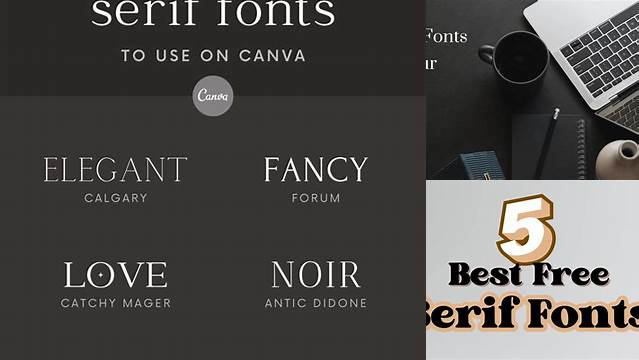
Best Free Serif Display Fonts For Stunning Designs
Are you ready to supercharge your design projects? Let's dive into the world of serif display fonts! They're perfect for making a statement and adding a touch of elegance. Display fonts are designed to grab attention, and when you pair them with the classic charm of serifs, you get a winning combination. Finding the right font can be a game-changer. Imagine the impact of a beautifully crafted headline or a logo that instantly conveys sophistication. With so many options out there, choosing the best free serif display fonts can be a real adventure. We will explore some of the most popular choices, and share tips on how to use them effectively. This is a guide to help you discover the best fonts and enhance your designs. So, let's get started, and get ready to elevate your design game!
Why Choose Serif Display Fonts?
First off, why would you choose a serif display font? Well, it's all about the details. Serif fonts, with their little strokes (serifs) at the ends of letters, have a timeless quality. They bring a sense of tradition, trust, and refinement to your designs. Display fonts, on the other hand, are made to be seen. They're meant for headlines, titles, and anywhere you need to make a big impact. When you combine them, you get something special. Serif display fonts are great for making headlines or titles, or adding a sophisticated touch. You see them everywhere, from website headers to print advertisements, and logos. They're an excellent way to add a touch of sophistication. The fonts have the power to set the tone and help your message stand out. For example, think about how a classic serif font can instantly make a brand look more established and reliable. This is why they are great choices. It's not just about aesthetics. Using the right font can improve readability and make your content more appealing. It's all about creating the right first impression and getting your audience hooked. So, think of your font choice as another tool in your design toolbox. Choosing the right one can make a real difference in the way your work is perceived. Let's go over some great choices. So, as you can see, choosing a serif display font is all about bringing in a bit of elegance and making a bold statement.
Top Free Serif Display Fonts to Consider
Alright, guys, let's get to the good stuff: the fonts! Here are some of the best free serif display fonts you can download. We've got some seriously stylish options to give your projects that extra edge. These fonts have gained popularity because of their unique style.
1. Playfair Display
Let's kick things off with Playfair Display. This font is a classic choice. It is perfect for headlines. Playfair Display has a high contrast and a vintage feel, making it super versatile. It looks great on everything from websites to print materials. The font's elegant serifs and clean lines make it ideal for creating a sophisticated vibe. You can use it for anything from a blog post title to a fancy invitation. Playfair Display's flexibility is one of its biggest strengths. It works well in both large and small sizes. Playfair Display is a great choice for any project. If you want to add a touch of elegance to your work, this is a great choice. It's a free font that brings a professional and stylish look. It is a real winner, and the best part is, it's free! Playfair Display is great for headlines and titles. The font has a high contrast and a vintage feel, making it super versatile. The font's elegant serifs and clean lines make it ideal for creating a sophisticated vibe. Consider this one first. Using the right font can boost your work.
2. Montserrat
Next up, we have Montserrat. It has a modern and clean aesthetic. Montserrat is not a serif font, but its sibling, Montserrat Alternates, is a serif font! Montserrat Alternates is great for headlines, but also body text! Its versatility is amazing. It is perfect for branding. You can use it on your website, or print ads. This font is simple, yet impactful. Montserrat has become a favorite for designers worldwide. It is clear, easy to read, and can be used in many different contexts. For those of you who love a clean, contemporary design, Montserrat is the font for you. The font looks great in large headlines. It has good legibility for body text as well. It's a reliable choice. If you're looking for a font that combines simplicity with a modern flair, Montserrat is worth checking out. So, Montserrat is a great pick for its clean, modern look. It's perfect for almost anything! The versatility makes it a reliable choice. It's a favorite for designers for a reason. So, add this font to your list!
3. Libre Baskerville
Libre Baskerville is a timeless choice. This font is inspired by the classic Baskerville typeface. Libre Baskerville brings a touch of traditional elegance to your projects. The font has beautiful serifs and a classic feel, and it is a great option for both headlines and body text. If you want to add a touch of class to your work, Libre Baskerville is an excellent choice. It works well in a wide range of design projects. Libre Baskerville has a strong history. The font brings that old-school elegance. This font is a great choice to make your work more readable. Consider Libre Baskerville if you want a font that combines history with readability. It has clean lines and a timeless appeal, making it ideal for a wide range of design projects. If you want to create a classic feel, this font is for you. It's perfect for making your work both beautiful and easy to read. The readability and classic feel make it a standout choice.
4. Raleway
Raleway is a versatile font with a modern feel. Raleway is a sans-serif font, but a serif version of it also exists. This is another great choice to help your project stand out. It's clean, geometric, and suitable for a wide variety of design needs. It's perfect for both headlines and body text. If you want a modern and clean font, then Raleway is for you. Its popularity has made it a go-to for designers. It has a wide range of weights and styles. It's a great choice for many projects. Raleway is a very versatile font. Raleway is an excellent choice, so give it a shot! Its clean lines make it stand out. Raleway is a great choice for all your design needs. It is popular with designers because of its versatility.
How to Use Serif Display Fonts Effectively
Choosing the right font is only half the battle. You've got to know how to use it to make the most of it! Here are some tips to make sure your serif display fonts shine. Proper usage is key to enhancing your designs.
Pairing Fonts
Pairing fonts is the key to any design. Consider a serif display font with a complementary sans-serif for body text. Try using a more understated sans-serif for the main body text. This will let your display font stand out in the headlines. Try pairing a bold serif headline with a clean sans-serif for the body. Experiment with different combinations to see what works best. It's all about balance and creating visual harmony. So, don't be afraid to experiment to find the perfect pairing! It is all about finding the right blend. Try using a contrasting font for the body. This is a great way to make your text stand out. Try different combinations to see what works best!
Readability and Size
Readability is always important. Be sure to test your font in different sizes to make sure it's still easy to read. Some fonts might look great in large headlines, but they become difficult to read in smaller sizes. Make sure your audience can easily read your text. Test it out and ensure it looks good at any size! Consider the context of your design. Make sure you use the right font. You want it to be both beautiful and functional. The best font is one that your audience can read.
Spacing and Hierarchy
Spacing is another critical factor. Make sure to play with the spacing between letters and lines. This can have a big impact on the overall look. Use different sizes to create a clear visual hierarchy. Make sure your headlines stand out. Think about how you can use your fonts to guide the reader's eye through the content. Using space well can create a visually appealing design. Effective use of spacing improves readability. This helps your reader and creates a great experience.
Conclusion: Elevate Your Designs with Free Serif Display Fonts
So, there you have it, guys! We've covered some of the best free serif display fonts available. We've gone over the importance of serif fonts and given you some key recommendations. Whether you're designing a website, creating marketing materials, or just playing around with a personal project, these fonts are a great place to start. These fonts are ready to boost your design game. Remember, the right font can make a big difference. It can help your work stand out. We hope this guide has given you the tools to create amazing designs. Go out there and start creating!